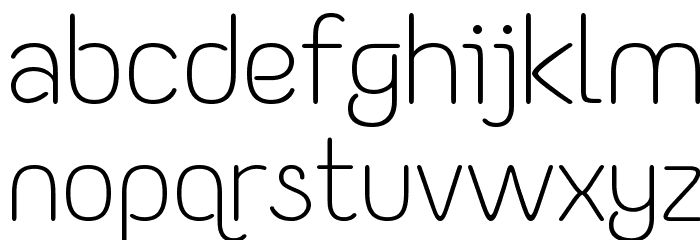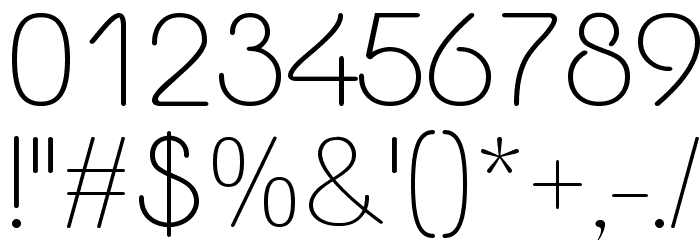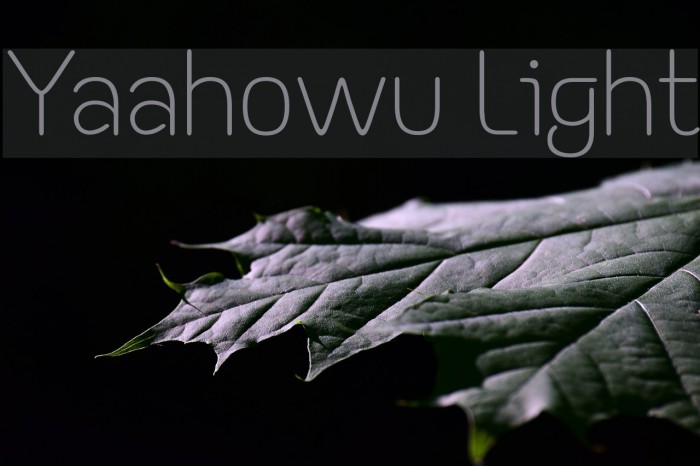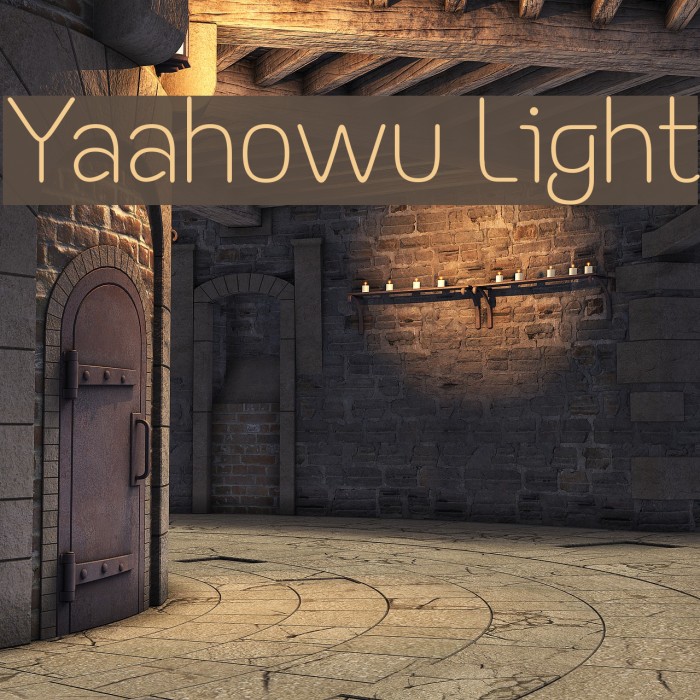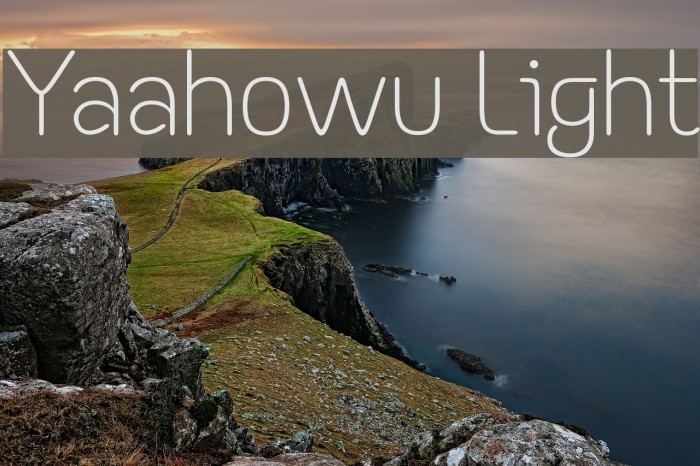
Yaahowu Light Font
This font features a clean and modern aesthetic with rounded edges and a minimalist design. The characters are evenly spaced, providing a balanced and harmonious appearance. The uppercase and lowercase letters maintain a consistent style, with smooth curves and a uniform stroke width. The numerals are clear and legible, making them suitable for various applications. Special characters are included, maintaining the same sleek and contemporary look. This font is versatile and can be used in both digital and print media, offering a fresh and approachable feel.
A modern, rounded font with a minimalist and clean design.
- Proposed Projects: Ideal for branding, web design, app interfaces, and modern print materials.